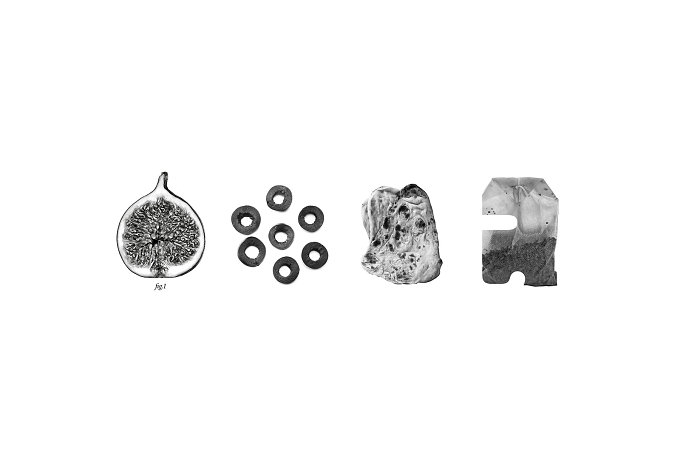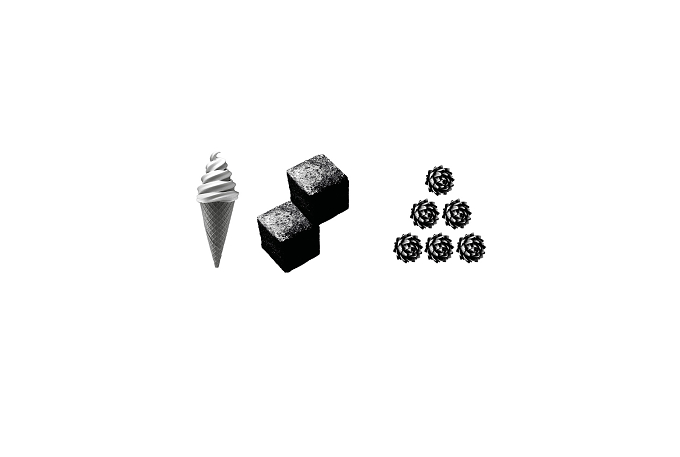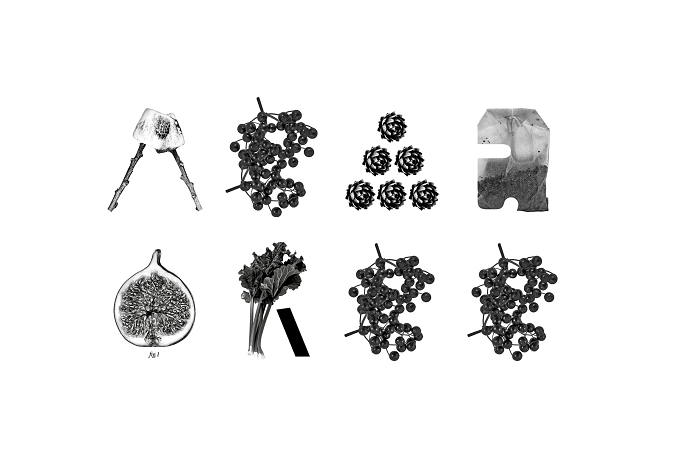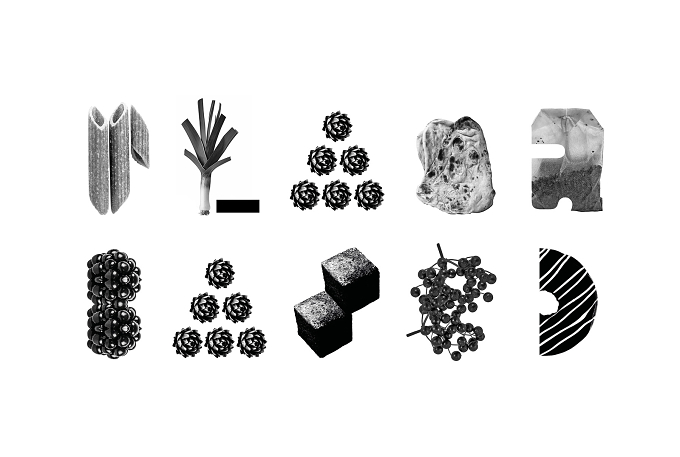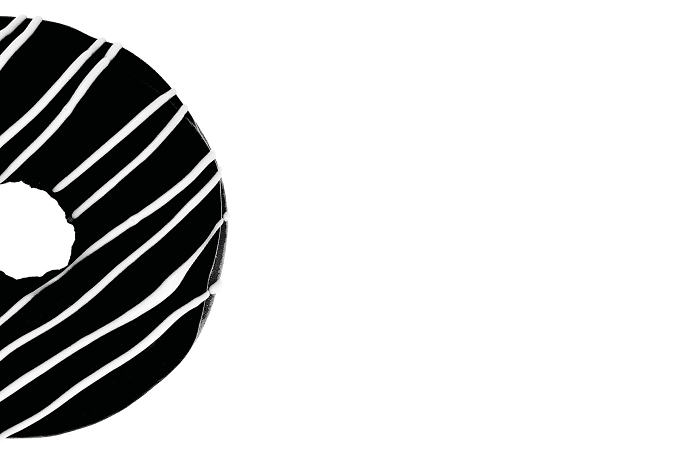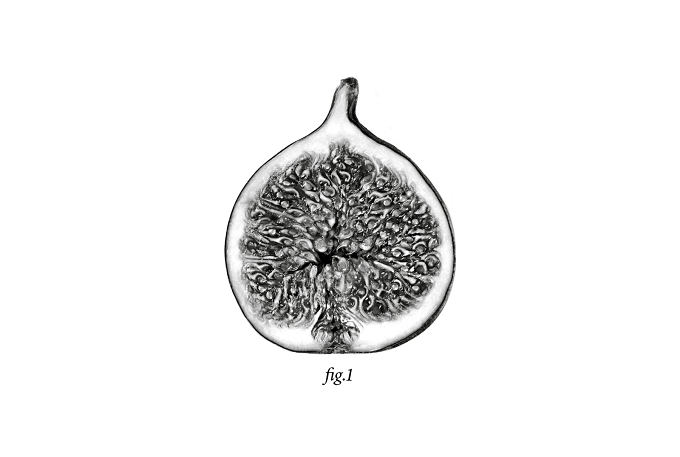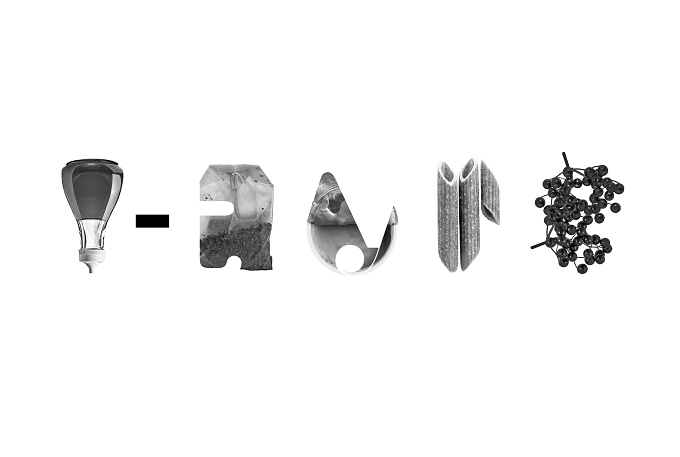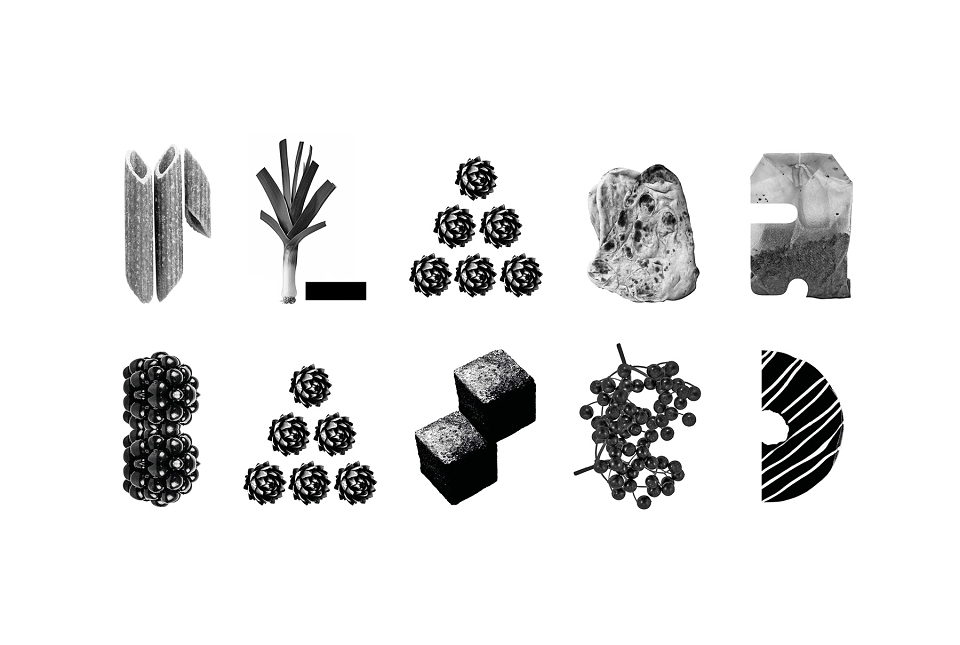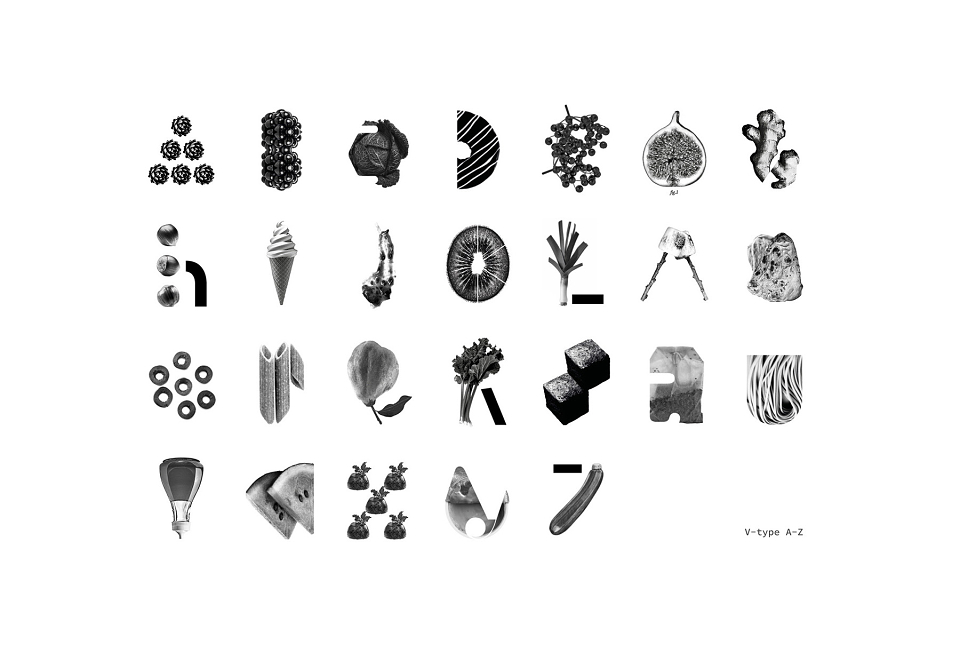
Eat With Your Eyes
We have designed the world’s first vegan typeface, V-type. We’ve challenged traditional font design and introduced a more playful ingredient. V-type is a plant-based code where reading becomes a more indulgent visual experience. The viewer should allow a little more time to consume, digest and decode the message [you should never rush a good typeface]. Once V-type is understood and the taste is acquired, reading becomes more creatively fulfilling.